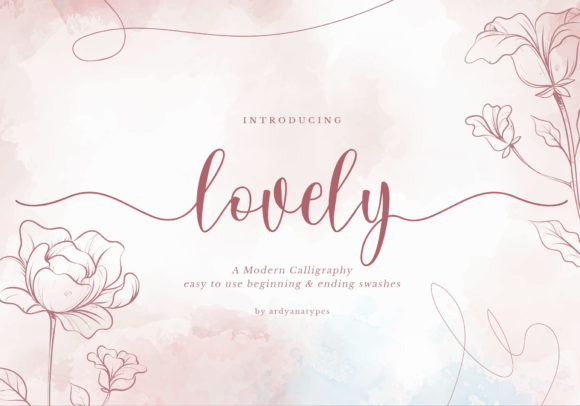
About Lovely Font
Lovely is a romantic and incredibly relaxed handwritten font. it is is PUA encoded which means you can access all of the glyphs and swashes with ease! It features a varying baseline, smooth lines, gorgeous glyphs and stunning alternates. Fall in love with its versatile style and use it to create spectacular designs!